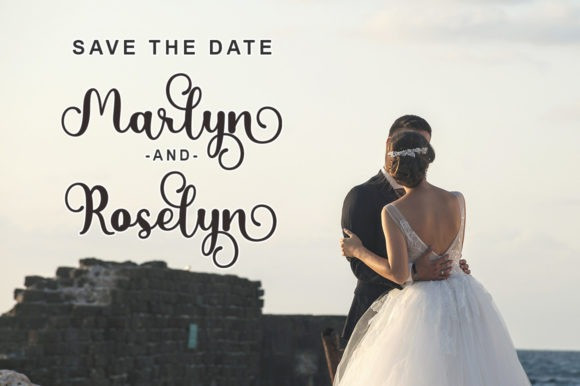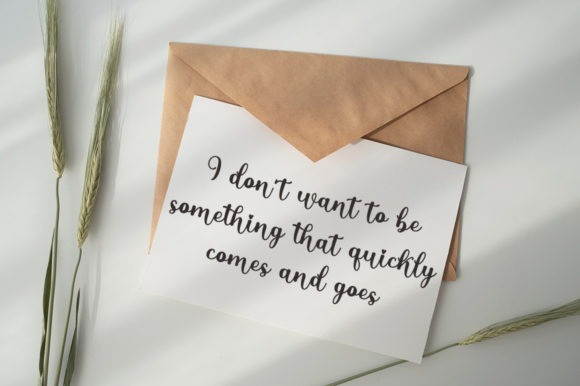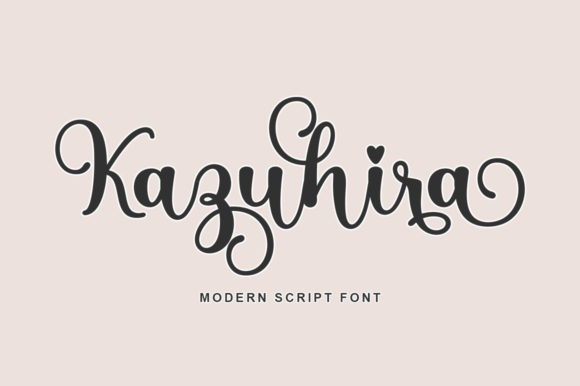
Kazuhira Font
Kazuhira Script Font is a romantic and sweet calligraphy typeface with characters that dance along the baseline. It has a casual, yet elegant touch. This font is PUA encoded which means you can access all of the glyphs and swashes with ease!